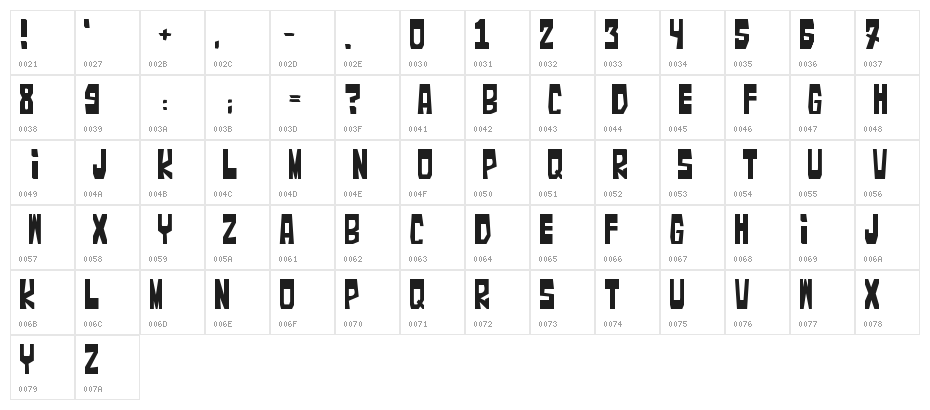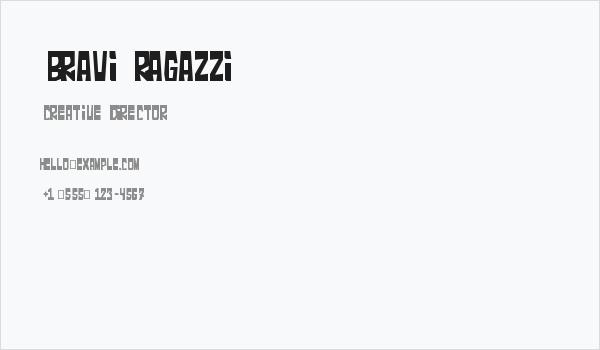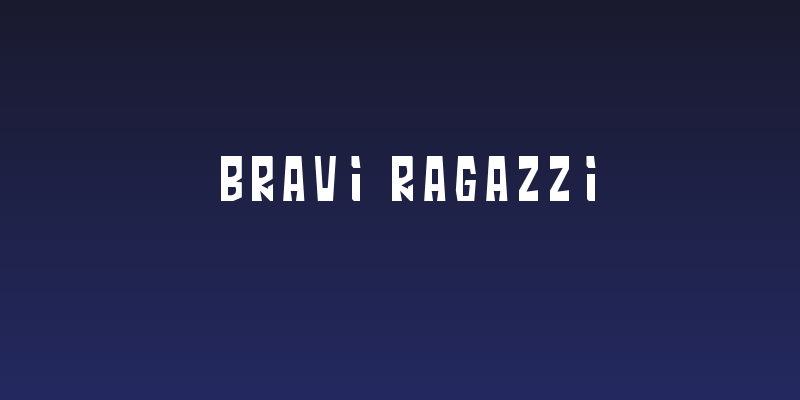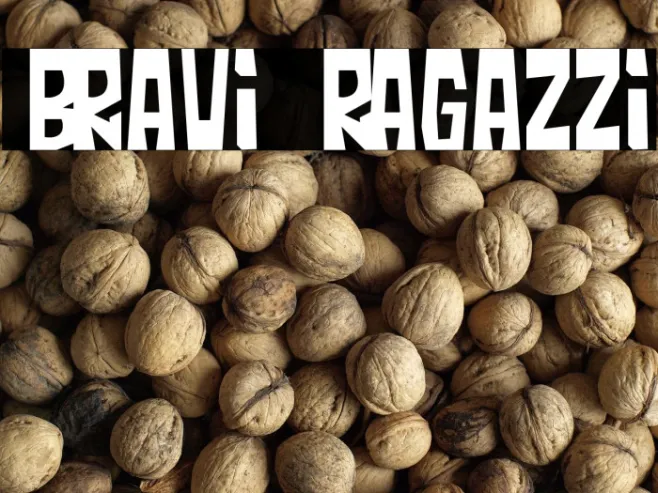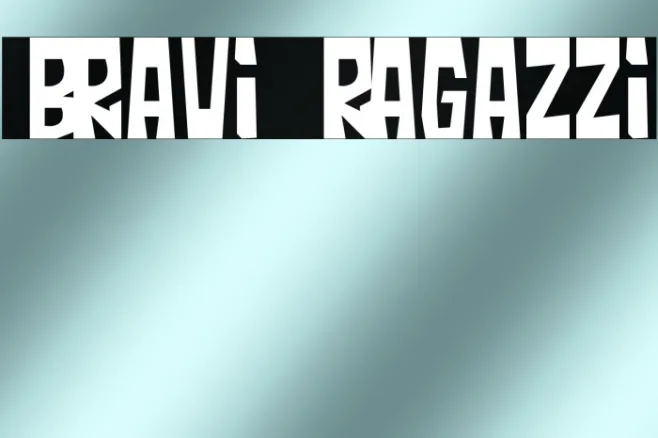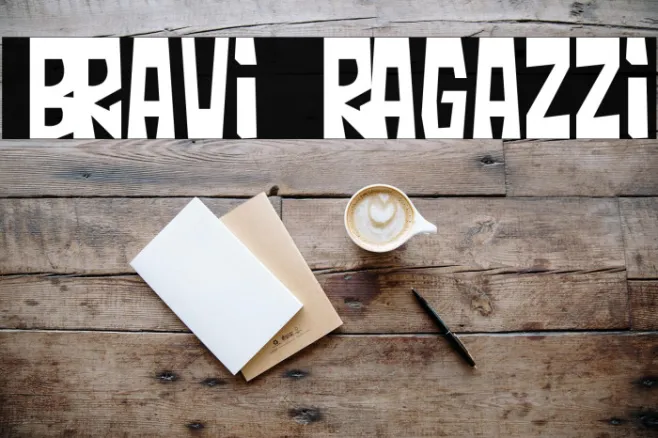
Bravi Ragazzi Font
Bravi Ragazzi Description
This font features a bold and dynamic style with a distinctly angular and geometric design. The characters are crafted with sharp edges and varying widths, creating a sense of movement and energy. The uppercase and lowercase letters maintain a consistent aesthetic, while the numbers and special characters complement the overall design. The font's unique appearance makes it suitable for projects that require a strong visual impact.
| Proposed Projects | Ideal for posters, album covers, video game titles, and branding that requires a bold statement. |